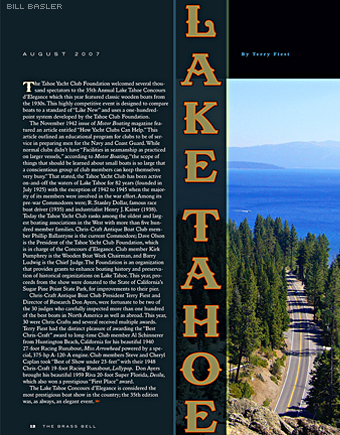
Inspired from an old cigar label. A fine piece of craftsmanship wrapped up nicely within 2 fonts. Regular and Outline versions with alternates. Includes numbers, full punctuation and accents. You might also like: Riverboat & Tonic.